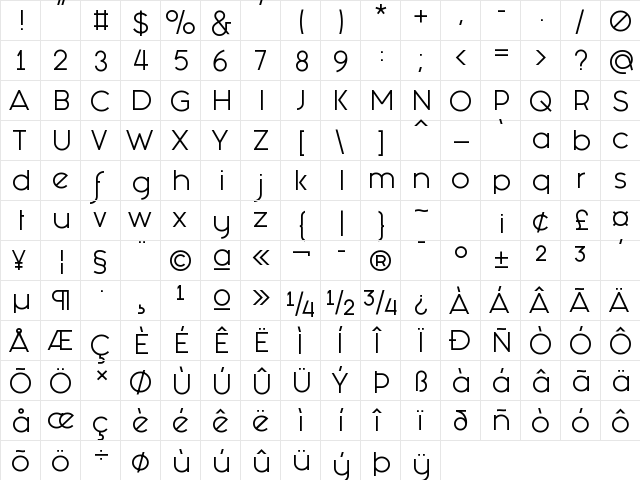
Fashion Fetish Regular
Design Context for Fashion Fetish Typeface
Fashion Fetish takes a measured approach to typography — its balanced proportions and neutral character make it a reliable workhorse for both digital and print work.